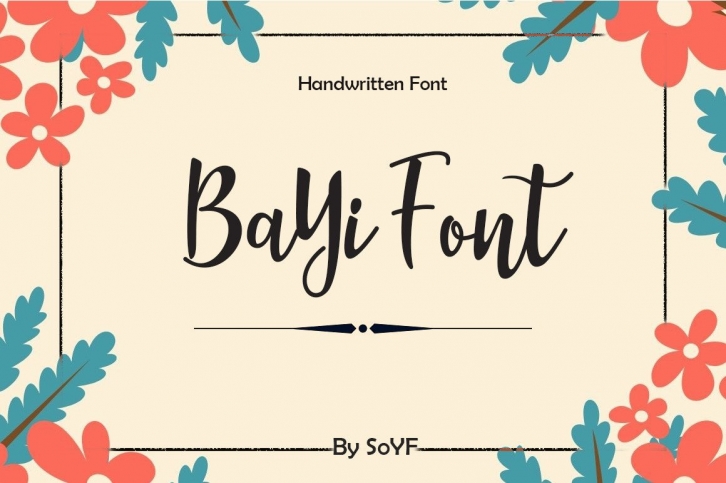
Bayi is a delicate, graceful, and flowing handwritten font. It has lovely and well-balanced qualities, and as a consequence, it goes with a wide range of styles.